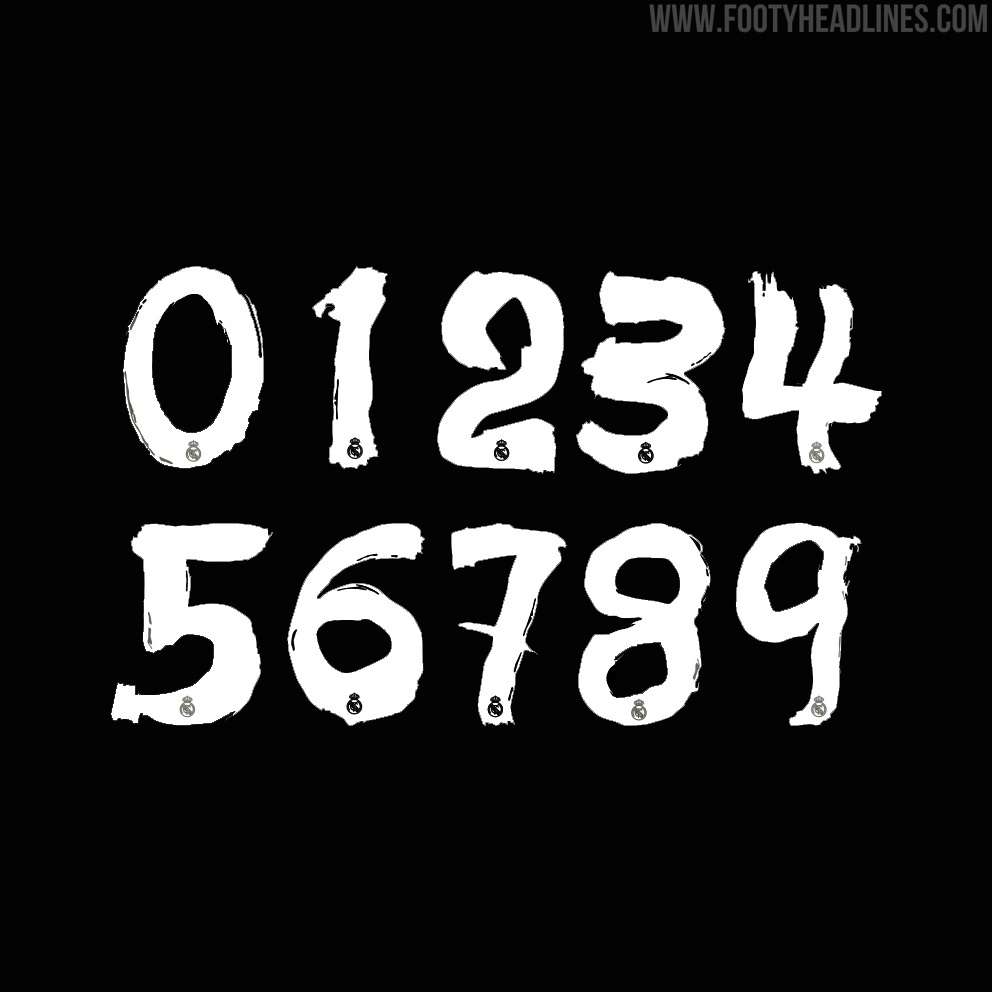
Adidas Y-3 Real Madrid Kit Font Carried Over For 2024
- Font Continuity: Real Madrid is using the same Y-3 typeface for their 2023-2024 kits as they did in 2022.
- Unique Design: The Y-3 typeface is a bespoke, hand-painted design created by Yohji Yamamoto for the Real Madrid 120th anniversary kit.
Update: Real Madrid uses the same typeface for its 2023-2024 Yamamoto football kits as in 2022 - the font is carried over.
Japanese designer Yohji Yamamoto has created a bespoke typeface for the Adidas Y-3 x Real Madrid 120th anniversary kit.
Real Madrid will certainly not use the typeface in today's El Clásico against Barcelona, as La Liga requires teams to use a streamlined kit font.
We imagined how Mbappe x No. 7 would look
Y-3 Real Madrid 120th Anniversary Kit Typeface
The Y-3 Real Madrid typeface has been created by hand, resulting in a unique “hand painted” look.
Of course, the “hand painted” style has been digitized, and so every number and letter is identical on the final product.